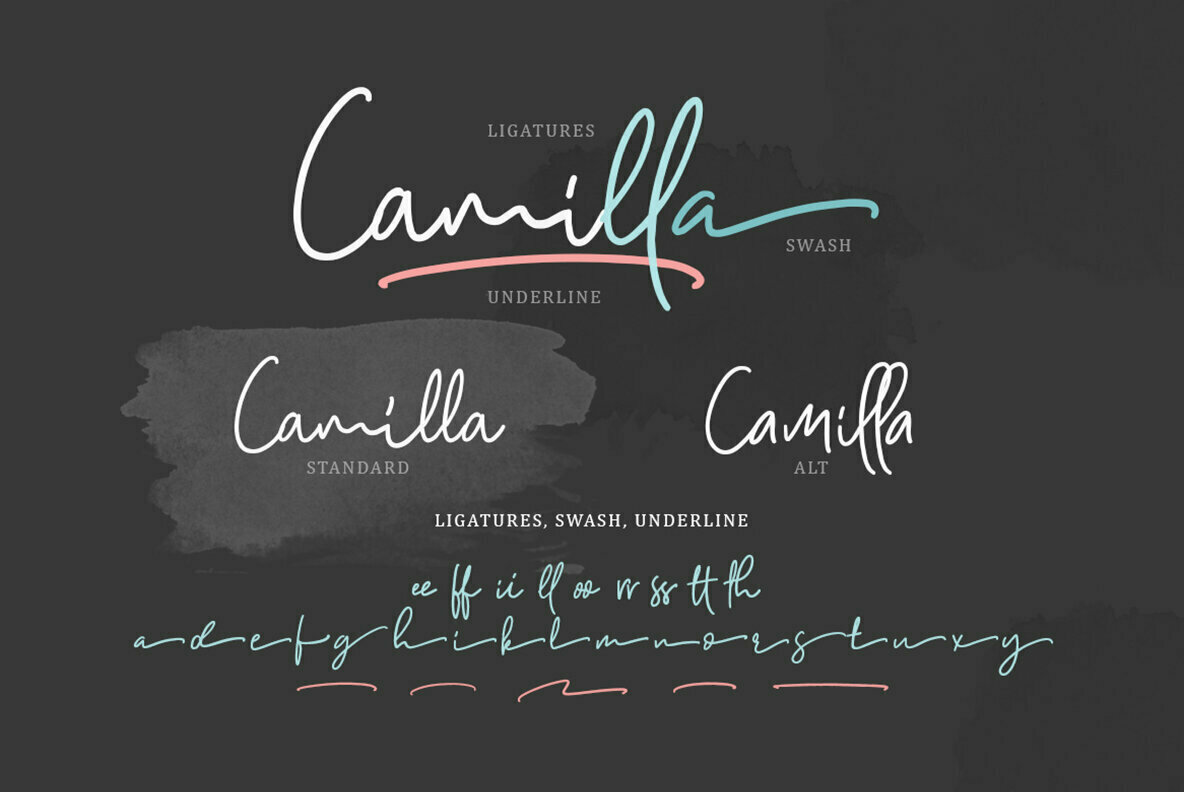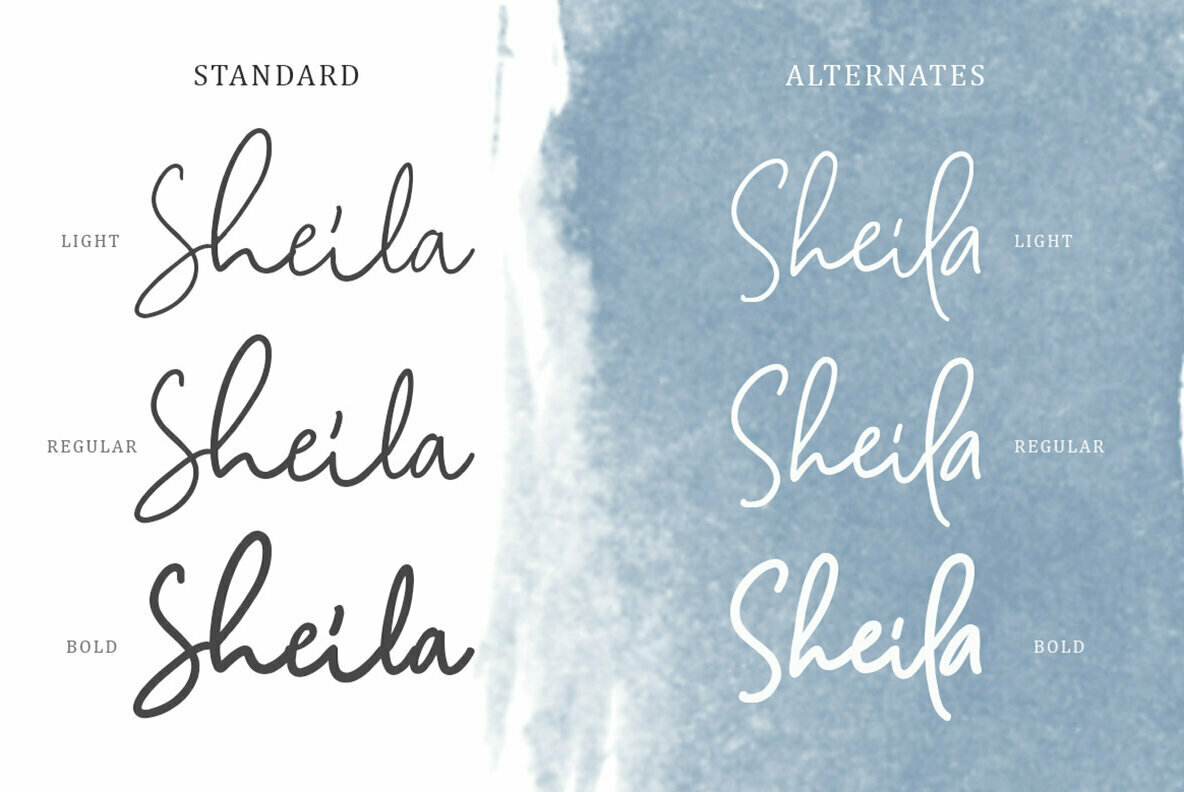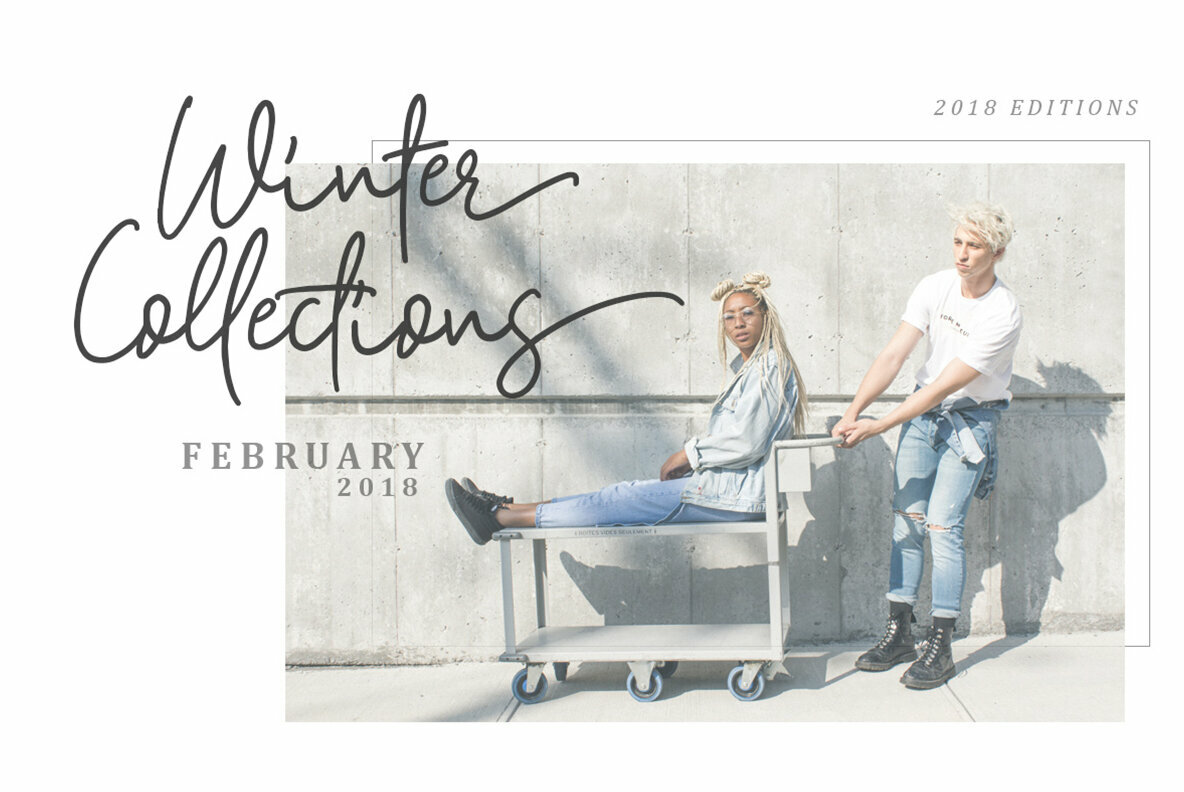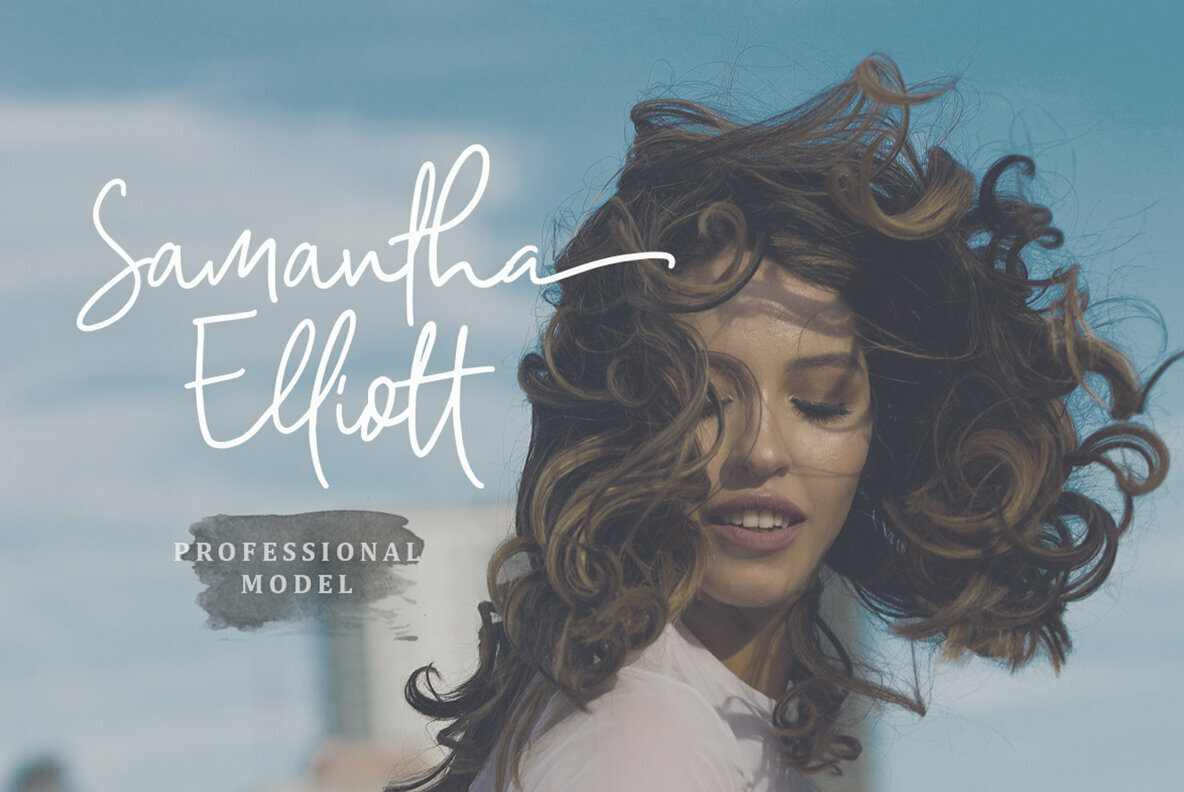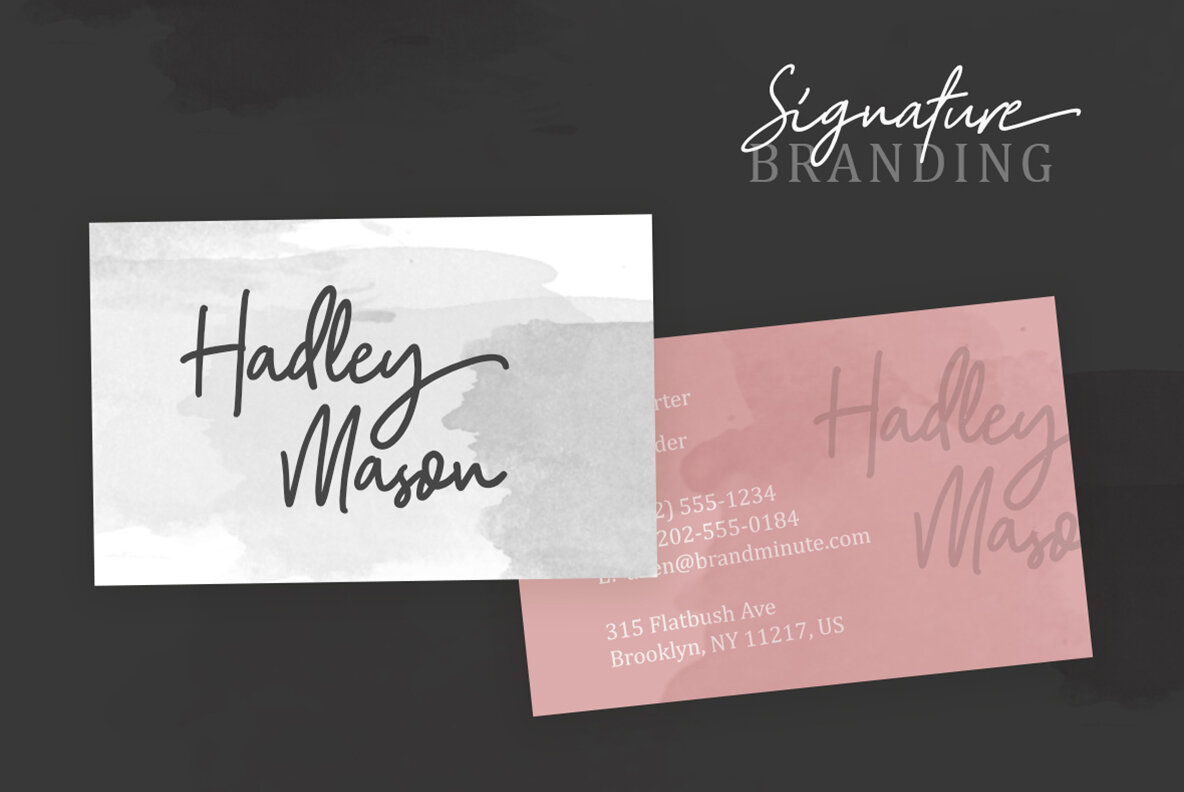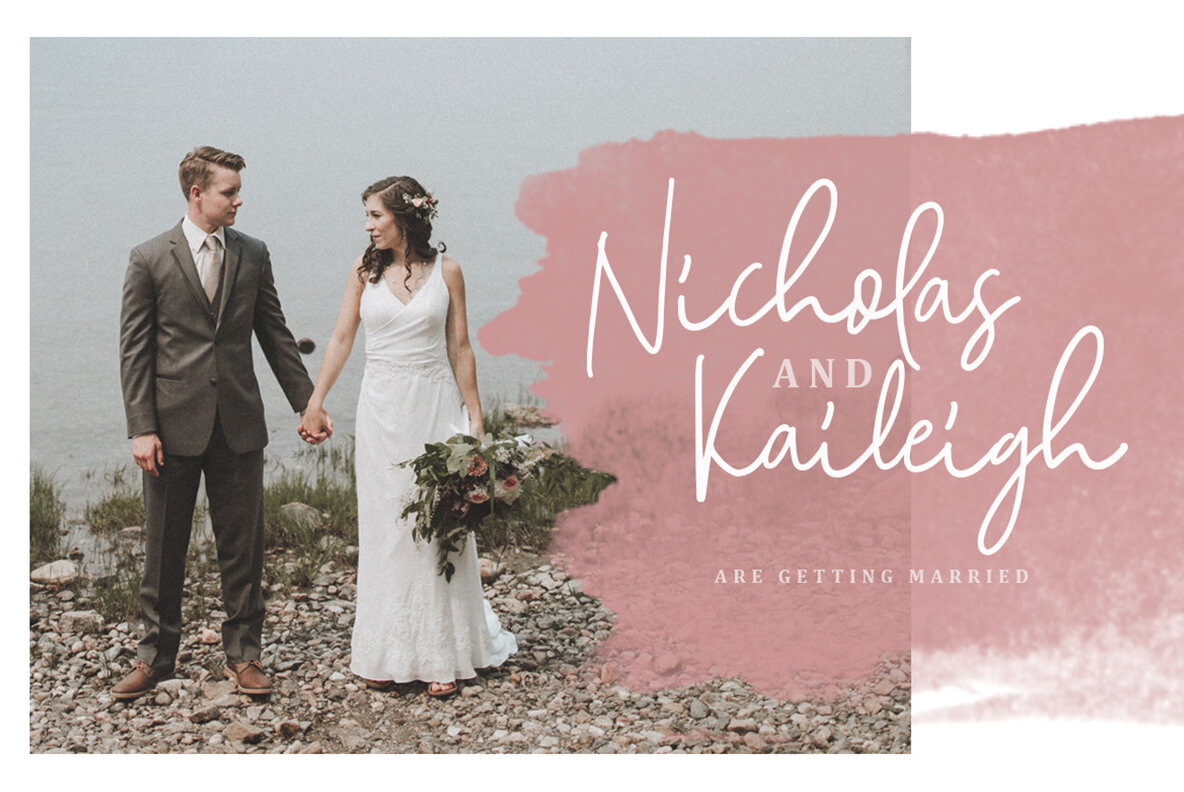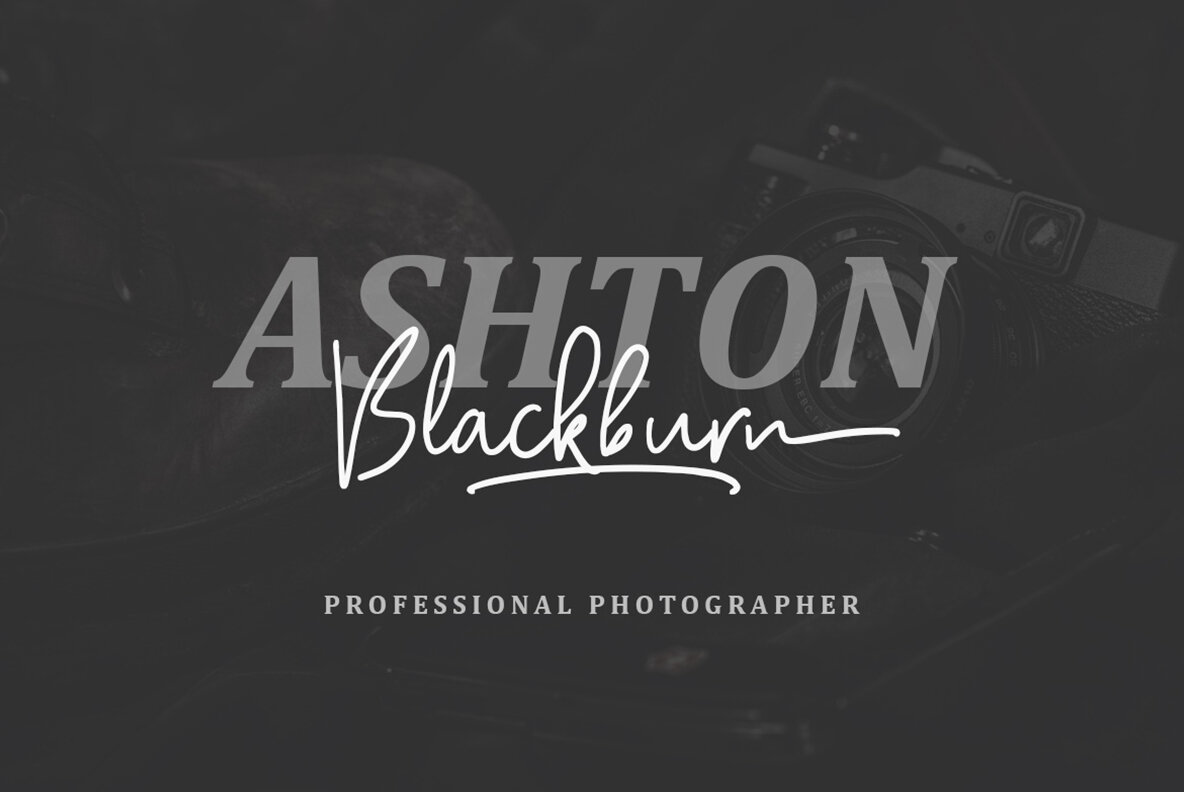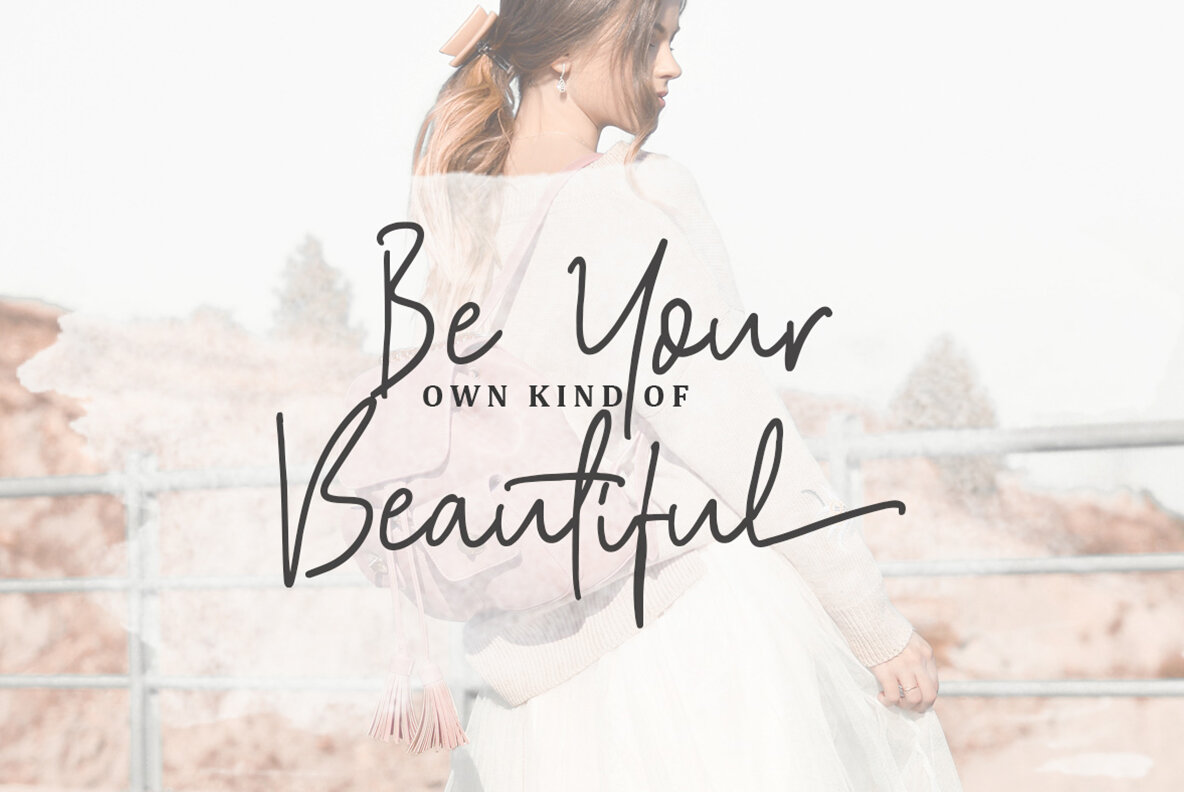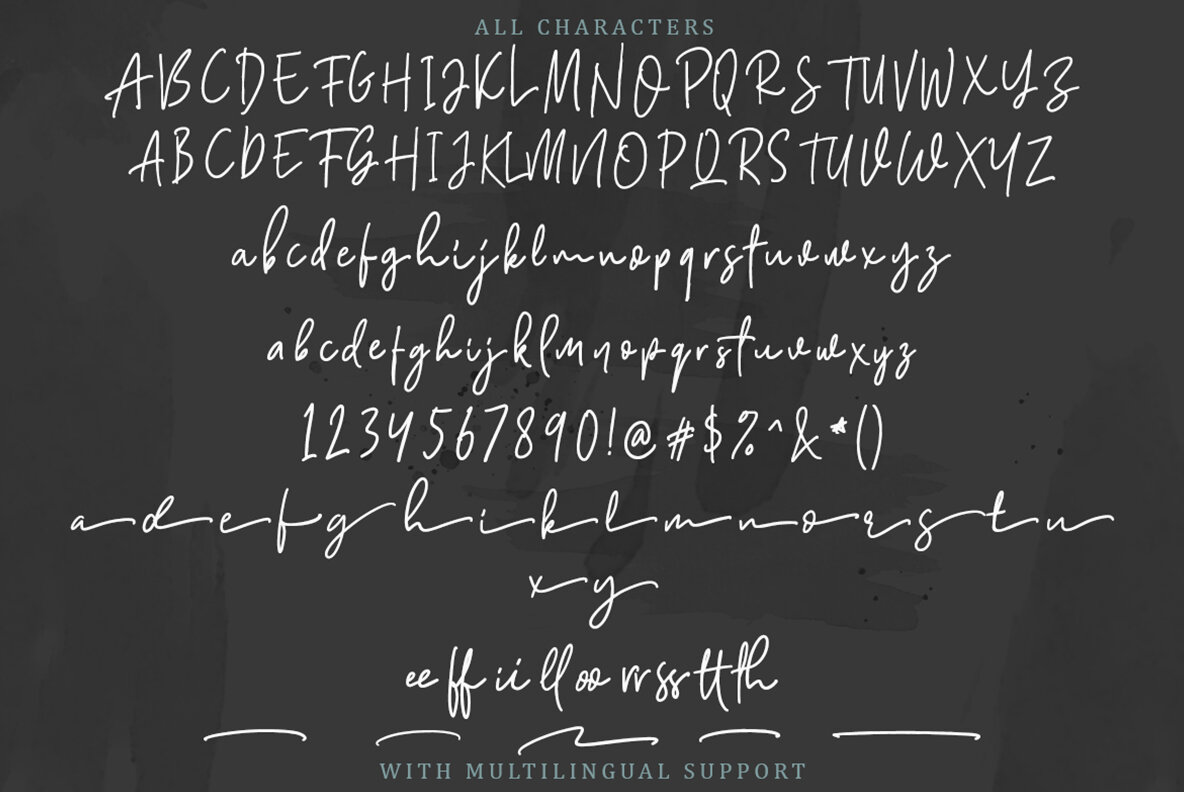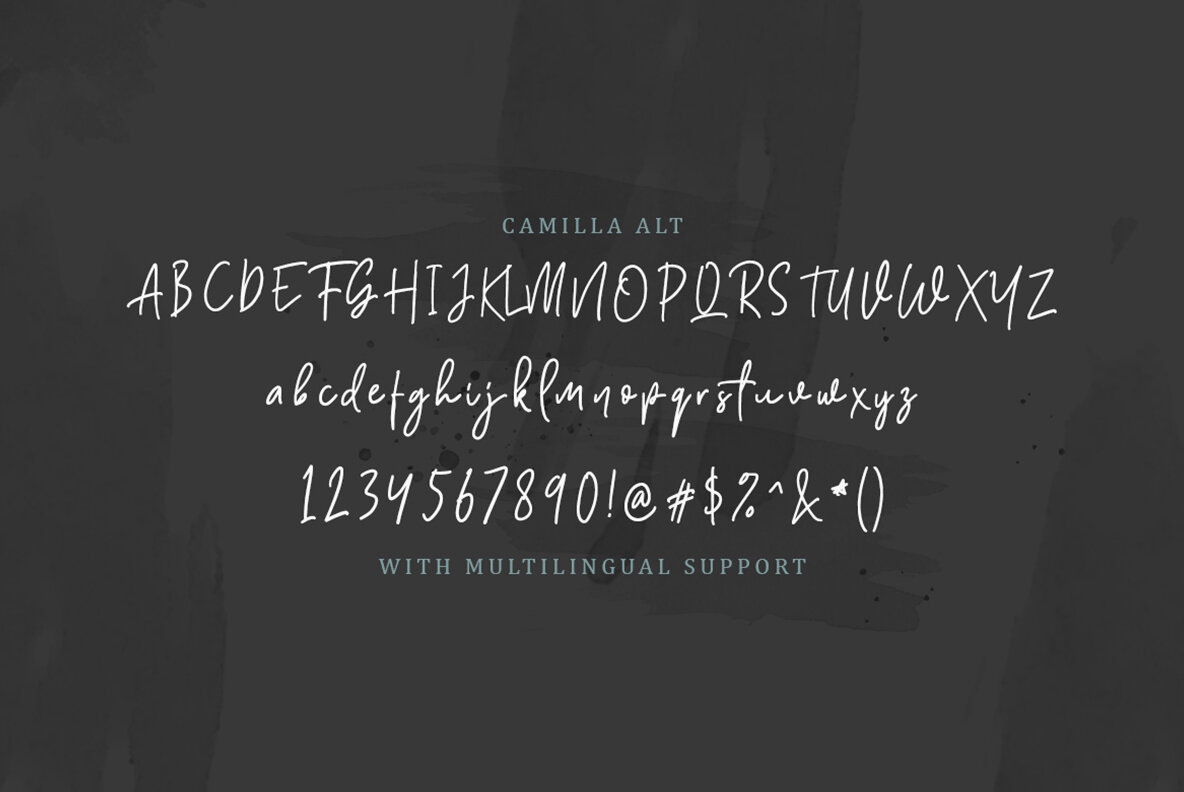
Camilla Font
The Camilla Script Family offers a collection of six fonts that redefine signature styling with flare and sophistication. Ideal for creating distinctive logos, high-fashion designs, or artful handwritten quotes, this typeface family is crafted to bring elegance to every project. The assortment includes Regular, Bold, Italic, and alternative versions to suit a wide array of design needs. Each font is PUA encoded, ensuring ease of use and access to all characters.Camilla Script Family: Elegance in Every Stroke